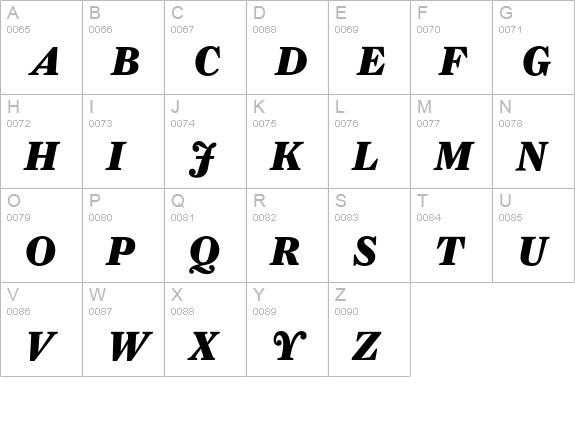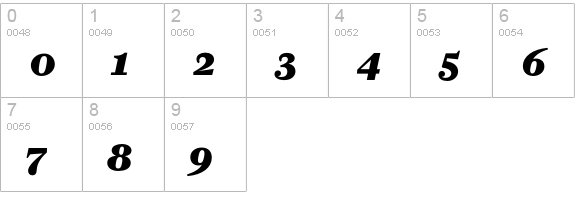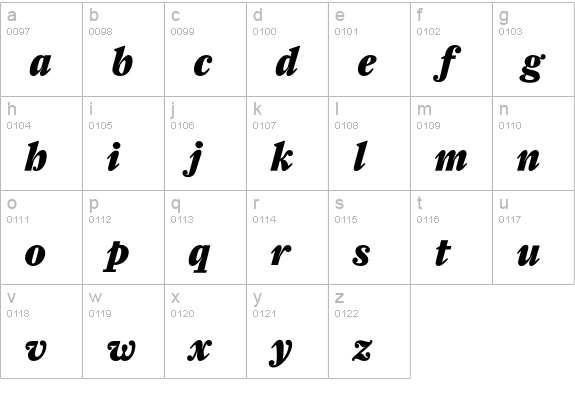
FarnhamDisplay-BlackItalOSF is a bold and elegant font that exudes sophistication and style. Its slanted italics add a touch of flair, making it perfect for creating eye-catching designs. This typeface is ideal for headings, titles, and other prominent text where you want to make a statement. The FarnhamDisplay-BlackItalOSF font is meticulously crafted with attention to detail, resulting in a high-quality typeface that is both modern and timeless. Its intricate letterforms and unique design make it stand out from the crowd, adding a touch of luxury to any project. The best part? This stunning font is available for free download at FontsMarket.com. Whether you're working on a professional project or just looking to elevate your personal designs, FarnhamDisplay-BlackItalOSF is a versatile font that will help you achieve your desired aesthetic. Download it today and add a touch of elegance to your next design project.